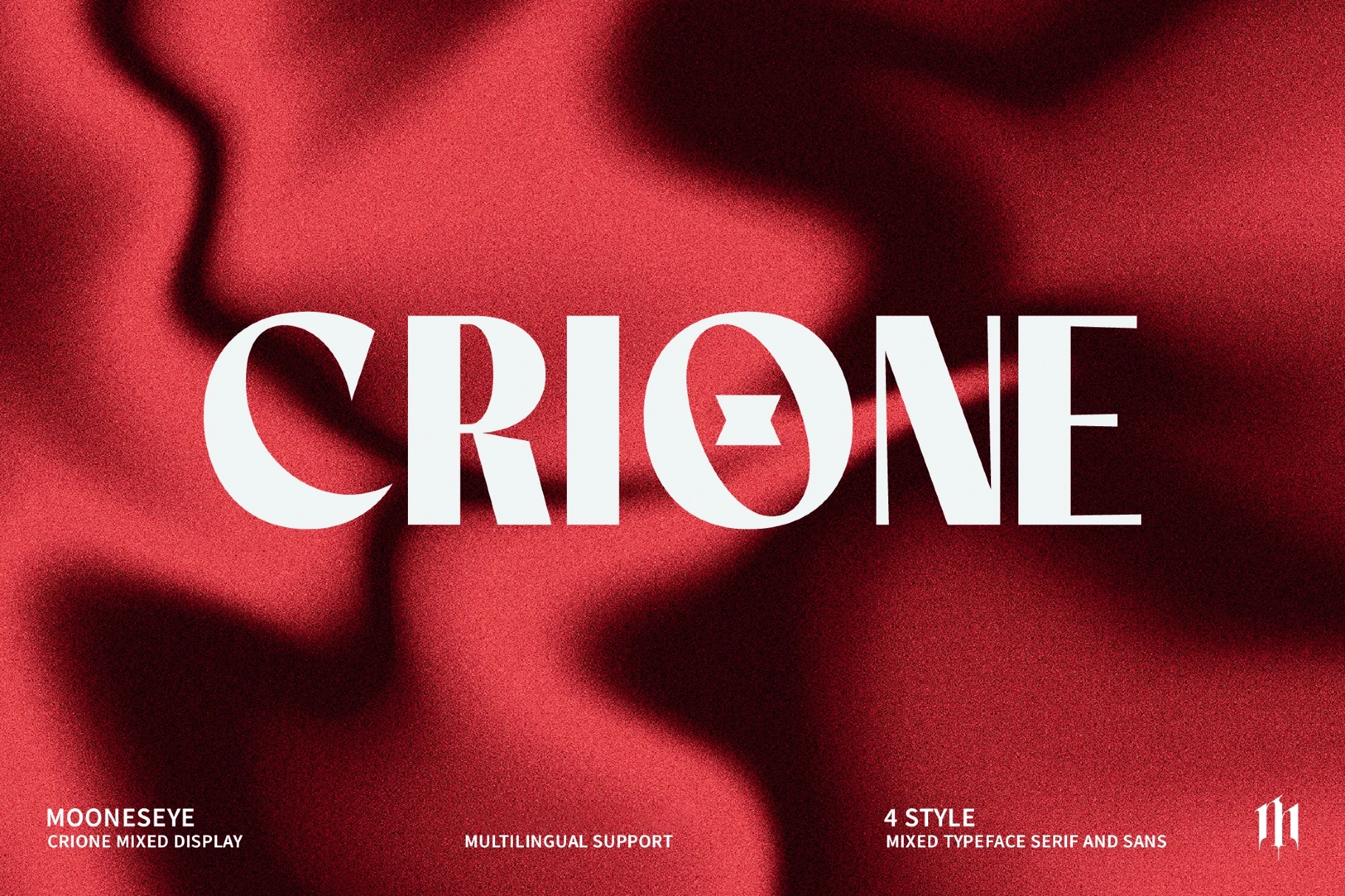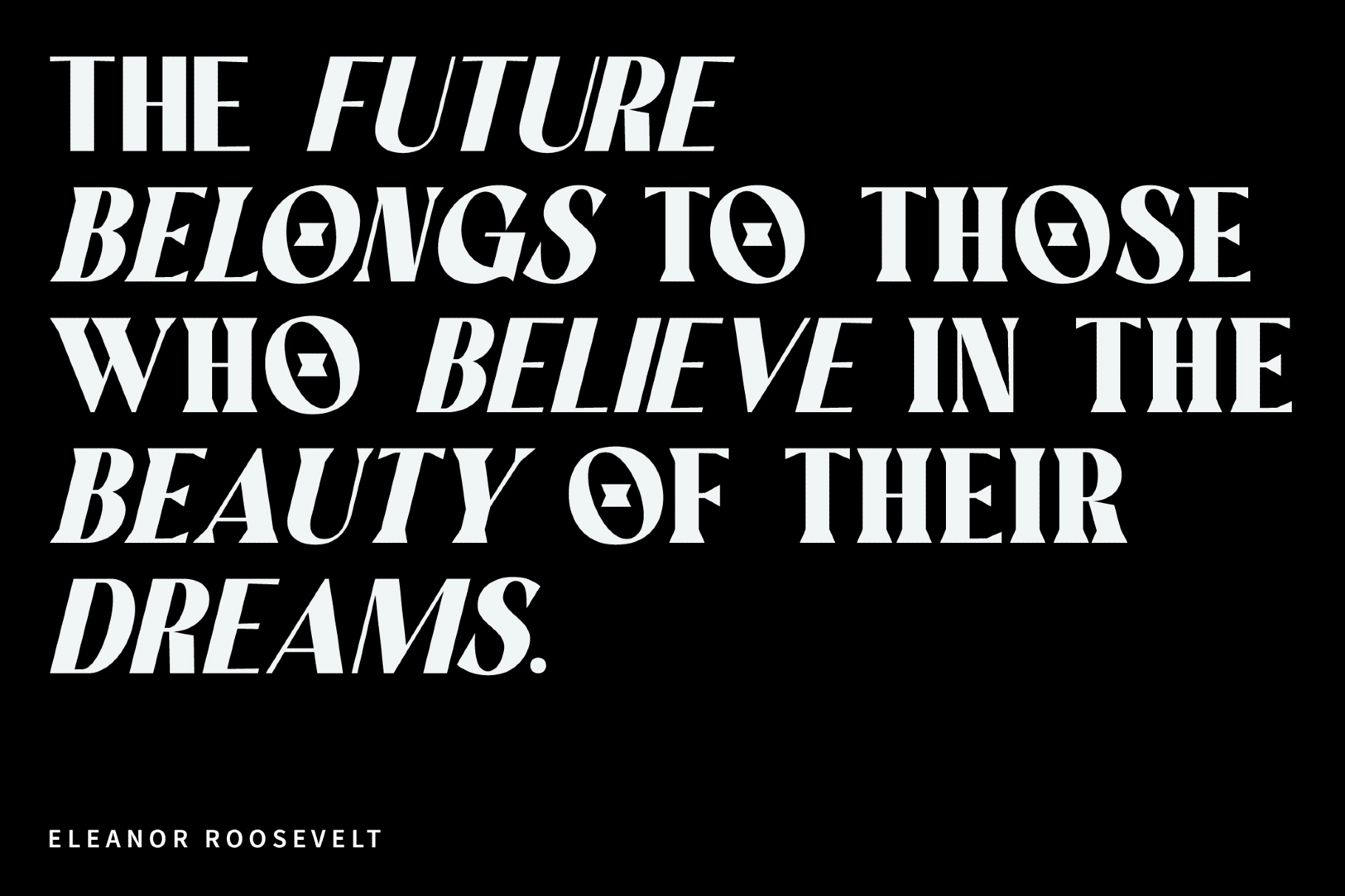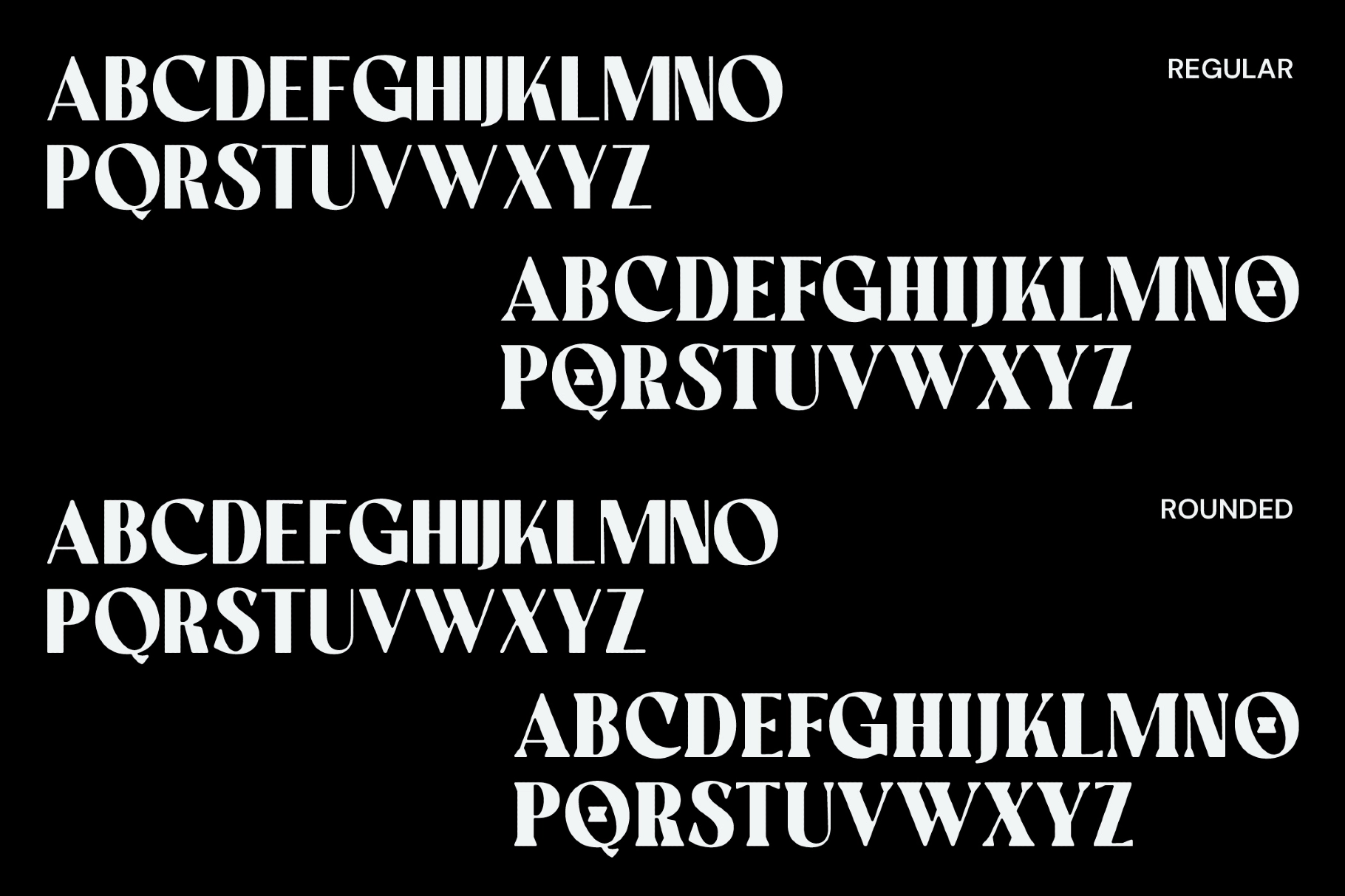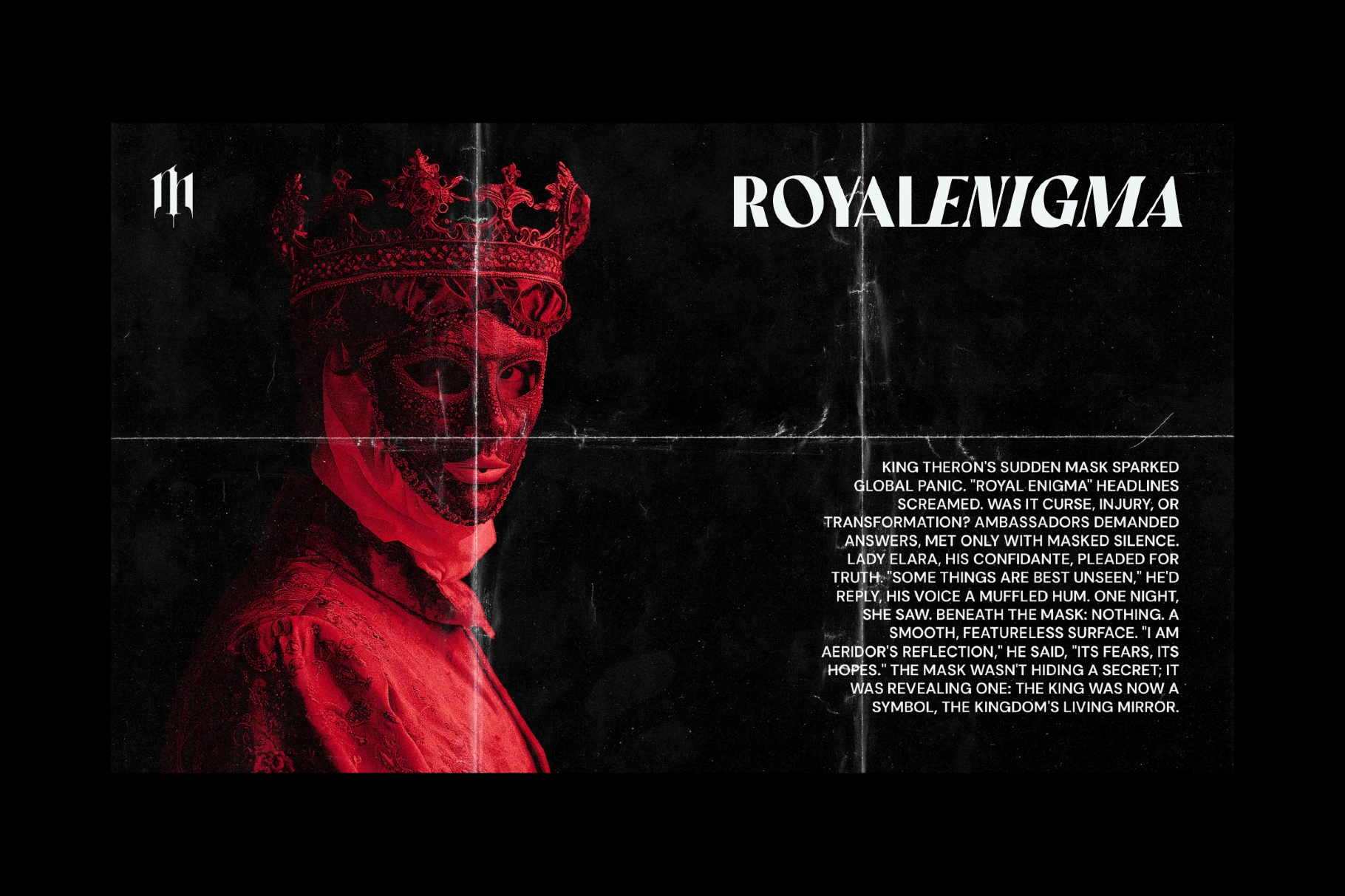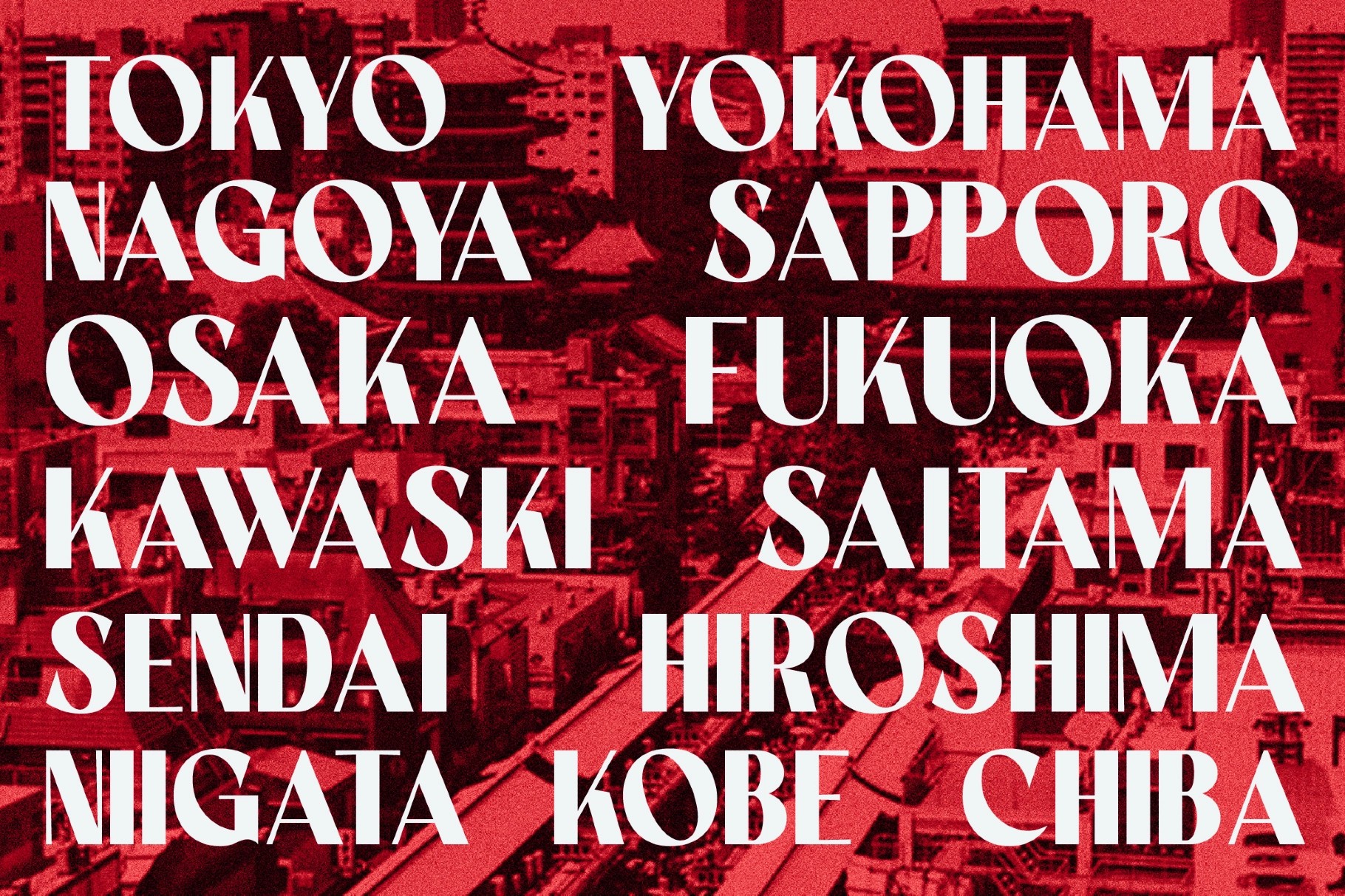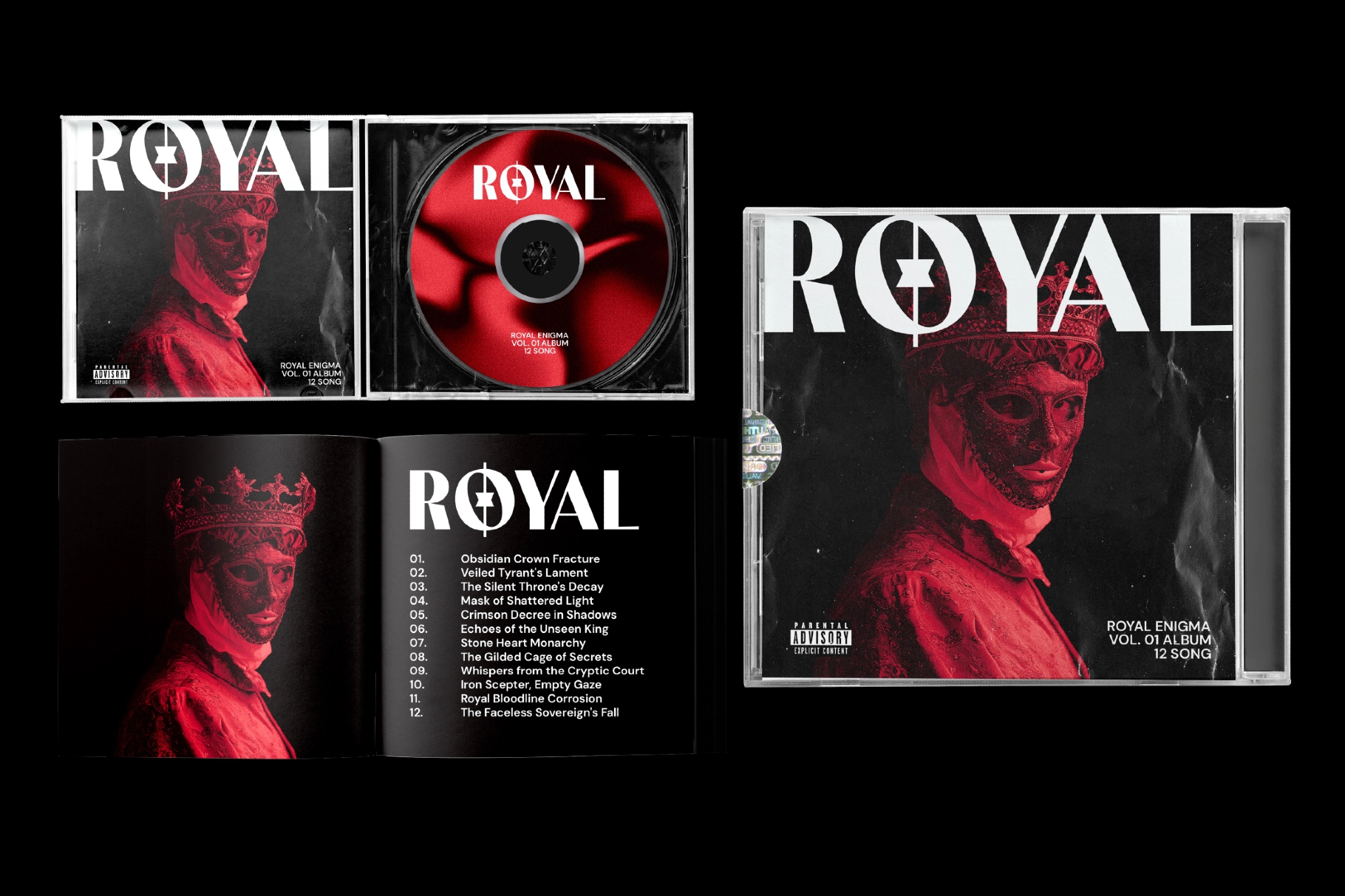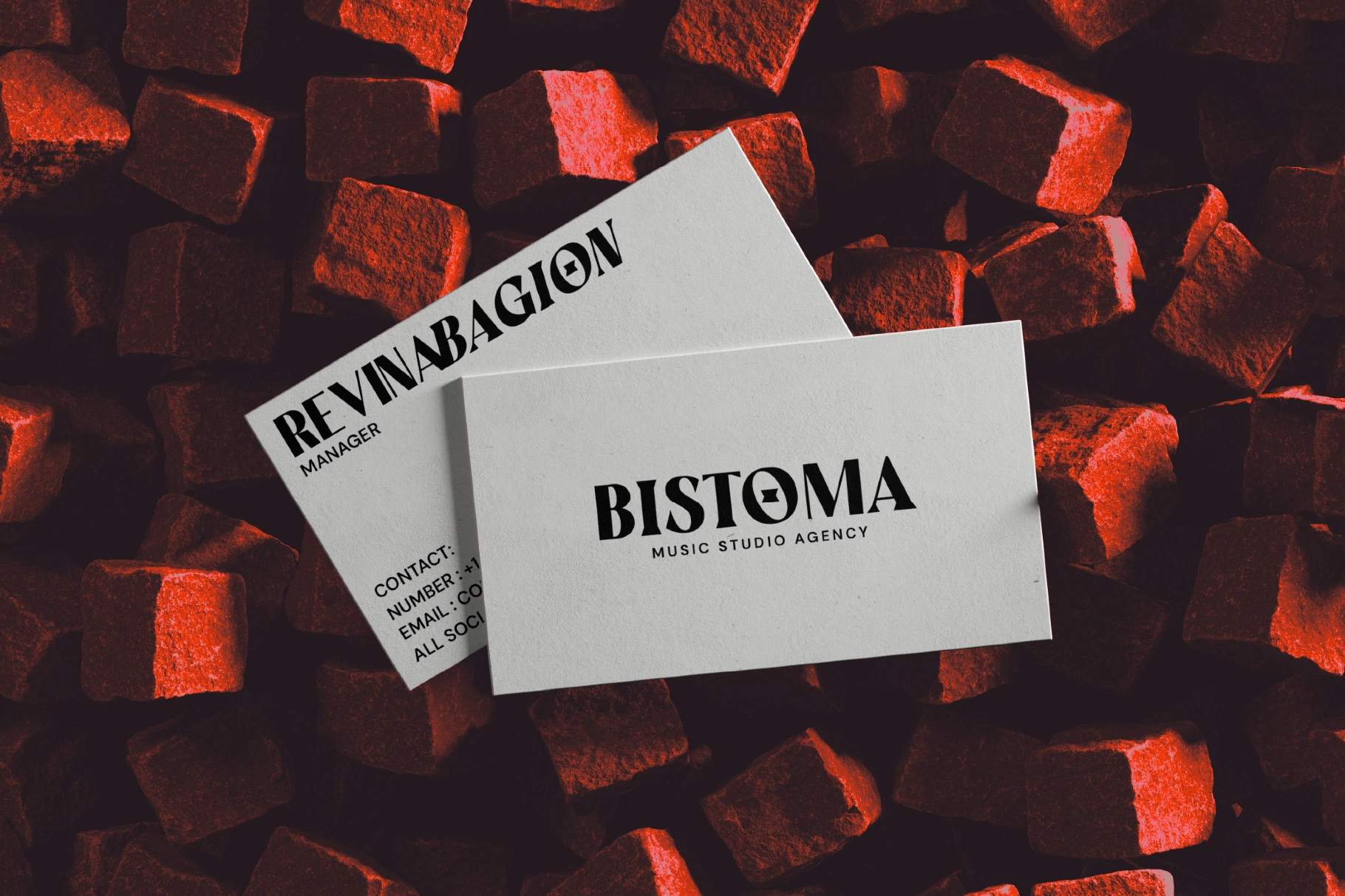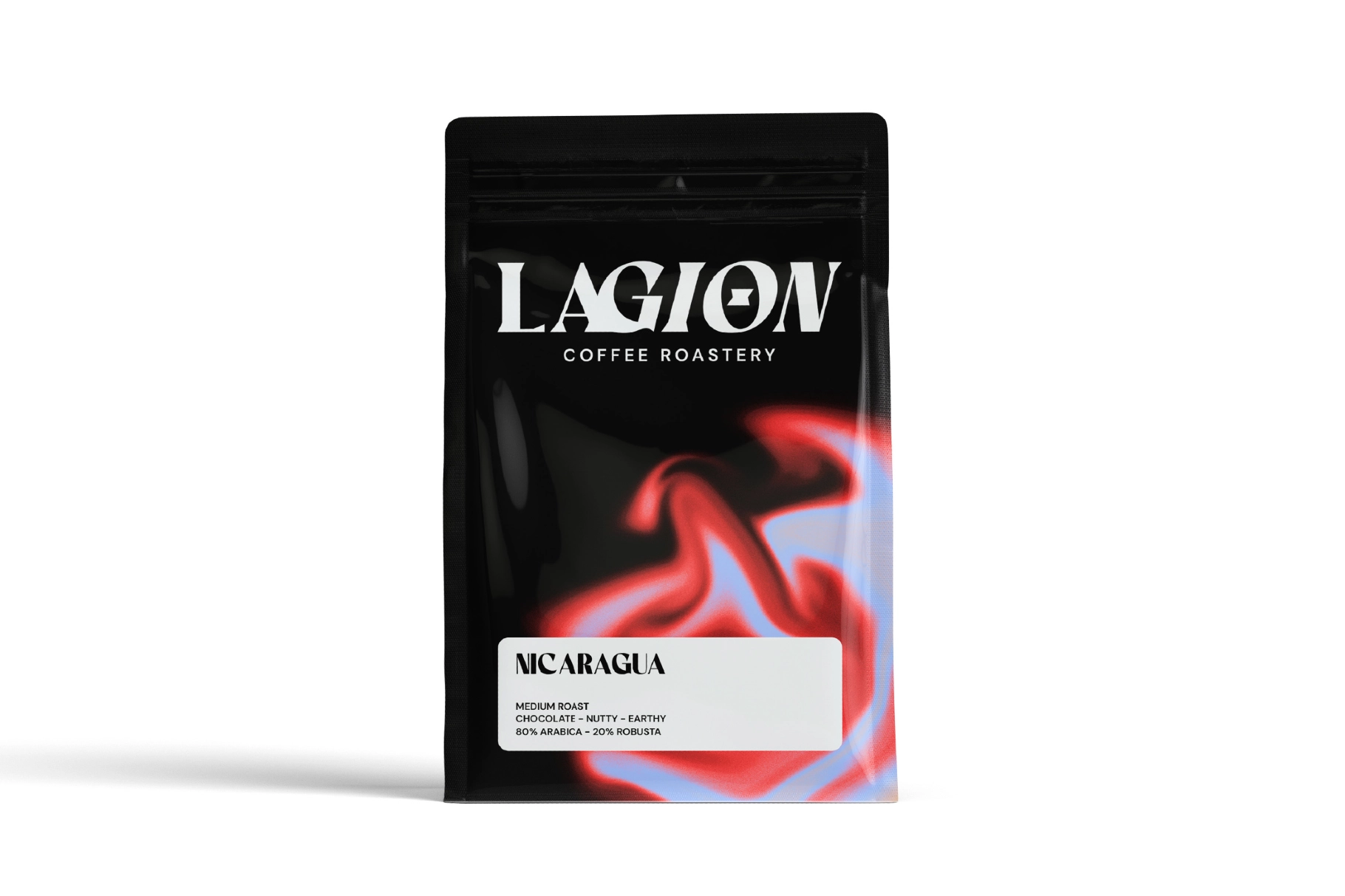
Crione - Bold Mixed Display Font
High-contrast strokes, sculpted capitals, and a mixed serif-to-sans structure give this display typeface a polished, cinematic voice. Its sharp cuts and cleaner geometric shapes create a premium look for wordmarks, covers, and oversized headlines.
Crione is made for luxury branding, fashion campaigns, album covers, cosmetic packaging, art books, gallery posters, perfume labels, cinematic titles, magazine spreads, event identities, restaurant branding, and more. The regular and rounded styles give designers a clear choice between crisp authority and softer graphic tension.
• 4 styles: Regular, Rounded, Italic, Rounded Italic
• All uppercase